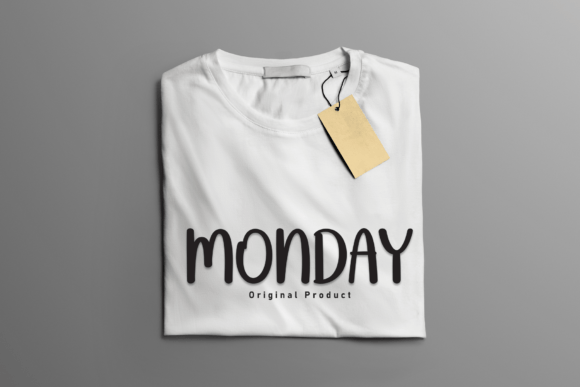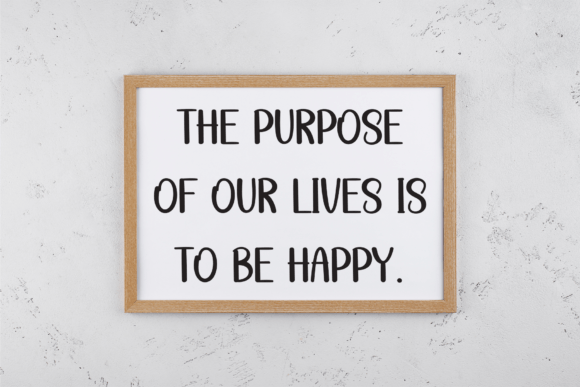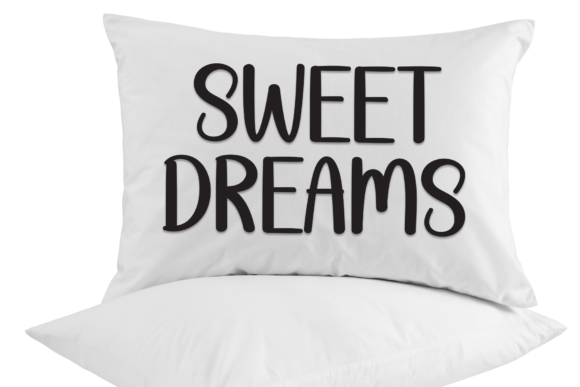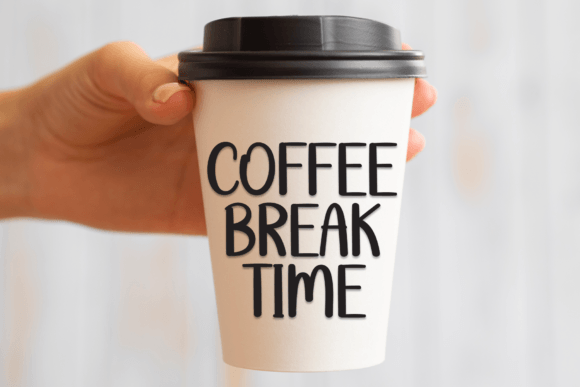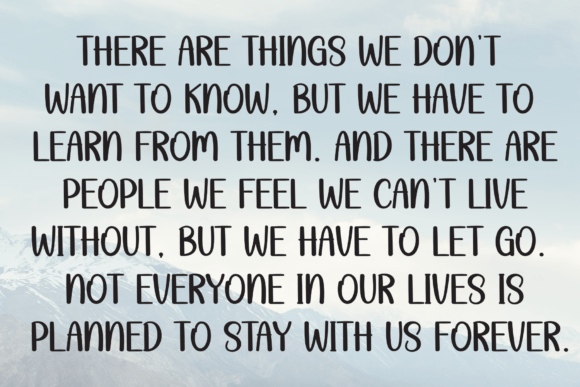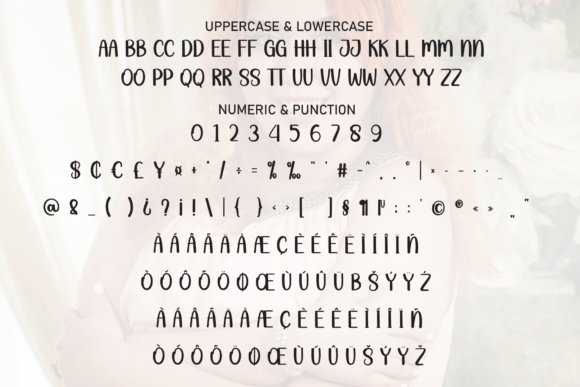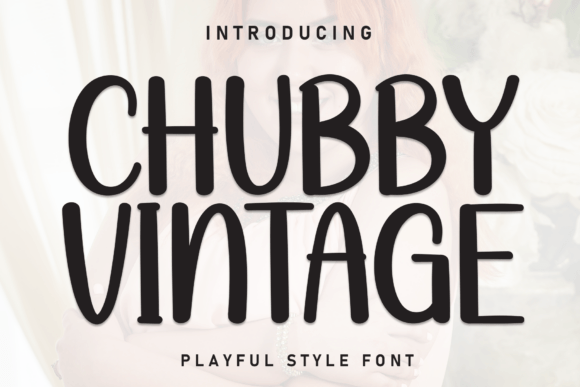
Introducing Chubby Vintage Font: The Perfect Addition to Your Design Collection
Are you a designer or crafter looking for a unique and eye-catching font to add a touch of personality to your projects? Look no further than Chubby Vintage Font! This bold, handwritten font is sure to bring a playful and rounded style to your designs, making it perfect for a wide range of applications.
What is Chubby Vintage Font?
Chubby Vintage is a bold, handwritten font with a charming and cozy look. Its playful and rounded style makes it great for posters, invitations, and anything that needs a fun, vintage vibe. The font’s unique character and whimsical feel make it perfect for designers and crafters who want to add a personal touch to their work.
Key Features of Chubby Vintage Font
- Bold and Playful Style: Chubby Vintage Font is a bold and playful font that is sure to grab attention. Its rounded style gives it a friendly and approachable feel, making it perfect for designs that need a touch of personality.
- Handwritten Look: The font’s handwritten look gives it a unique and personal feel. It’s perfect for designs that need a touch of whimsy and charm.
- Vintage Vibe: Chubby Vintage Font has a distinct vintage vibe that makes it perfect for designs that need a retro feel. It’s great for posters, invitations, and other applications where a fun and playful style is desired.
- Easy to Read: Despite its bold and playful style, Chubby Vintage Font is easy to read, making it perfect for designs that need to communicate a message.
Uses for Chubby Vintage Font
Chubby Vintage Font is a versatile font that can be used for a wide range of applications. Here are some ideas to get you started:
- Posters: Add a touch of personality to your posters with Chubby Vintage Font. Its bold and playful style makes it perfect for advertising, promoting events, or showcasing products.
- Invitations: Create unique and eye-catching invitations with Chubby Vintage Font. Its vintage vibe and handwritten look make it perfect for weddings, birthday parties, and other special occasions.
- Branding: Use Chubby Vintage Font to add a touch of personality to your brand. Its playful and rounded style makes it perfect for logos, packaging, and other branding materials.
- Crafting: Chubby Vintage Font is perfect for crafters who want to add a personal touch to their projects. Use it to create unique and eye-catching titles, headings, and other text elements.
Why Choose Chubby Vintage Font?
There are many fonts to choose from, but Chubby Vintage Font stands out from the crowd. Here are some reasons why:
- Unique Style: Chubby Vintage Font has a unique and playful style that sets it apart from other fonts. Its bold and rounded style makes it perfect for designs that need a touch of personality.
- High-Quality Design: The font is designed with high-quality and precision, ensuring that it looks great in any application.
Chubby Vintage Font is a bold, handwritten font with a playful and rounded style that is sure to bring a touch of personality to your designs. Its charming and cozy look makes it perfect for posters, invitations, and anything that needs a fun, vintage vibe. With its unique style, high-quality design, and ease of use, Chubby Vintage Font is the perfect addition to your design collection.